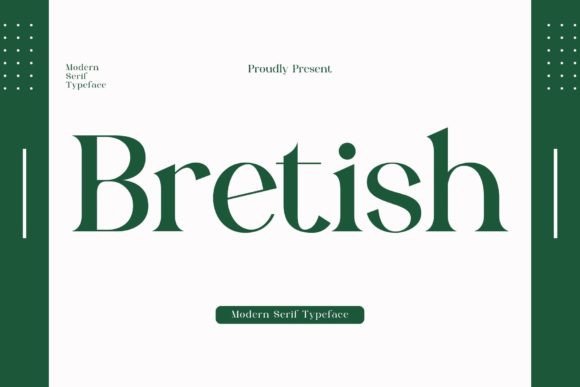
Introducing ‘Bretish’ Font: Elevate Your Creative Projects with Elegance
Have you ever been in the middle of a design project, pouring your heart and soul into every detail, only to hit a roadblock when it comes to finding the perfect font? I certainly have. It was during one of those moments, working on a client project that required a unique blend of modernity and elegance, that I stumbled upon the exquisite ‘Bretish’ Font series. In this article, we’ll dive into the world of ‘Bretish’ Font, exploring its features, how to use it, and what makes it a game-changer for designers, crafters, and creative hobbyists alike.
The Design Moment: A Story of Frustration and Delight
I recall working on a branding project for a luxury boutique, needing a font that exuded sophistication without being too over-the-top. The challenge was finding a font that wasn’t just aesthetically pleasing but also versatile enough to work across various platforms and mediums. After hours of scouring through font libraries, I finally stumbled upon ‘Bretish’ Font. Its meticulously crafted letters and perfect balance of modernity and elegance immediately caught my attention. It was as if the designer had read my mind, creating a font that checked all my boxes.
What I Love About ‘Bretish’ Font
- ✨ Elegant Design: Each letter is crafted with precision, ensuring a flawless typographic expression that elevates any design project.
- ✅ Versatility: ‘Bretish’ Font strikes the perfect balance between modernity and elegance, making it suitable for a wide range of projects, from luxury branding to creative crafts.
- 💡 OpenType Features: The font comes with advanced OpenType features, including glyphs and stylistic alternates, allowing for creative experimentation and customization.
While ‘Bretish’ Font is exceptionally well-designed, there are a few minor considerations to keep in mind:
- 🤔 Learning Curve: For those new to using OpenType features or glyphs, there might be a slight learning curve to fully leverage the font’s capabilities.
- ⚠️ Character Limitations: Some users might find the character set a bit limited for very specific projects requiring a wide range of special characters.
The story behind ‘Bretish’ Font begins with a passion for typography and a desire to create something truly unique. The designer, inspired by classic elegance and modern trends, embarked on a journey to craft a font series that would meet the evolving needs of creatives. Through meticulous attention to detail and a commitment to precision, ‘Bretish’ Font was born — a testament to the power of design to transform and elevate.
| Font Name | Bretish Font |
| Author | Font Kingdom |
Q: What makes ‘Bretish’ Font unique?
A: ‘Bretish’ Font stands out for its exquisite design, balancing modernity with elegance, and its advanced OpenType features for creative customization.
Q: Is ‘Bretish’ Font suitable for digital and print projects?
A: Absolutely. ‘Bretish’ Font’s versatility makes it ideal for both digital and print applications, from website headers to business cards.